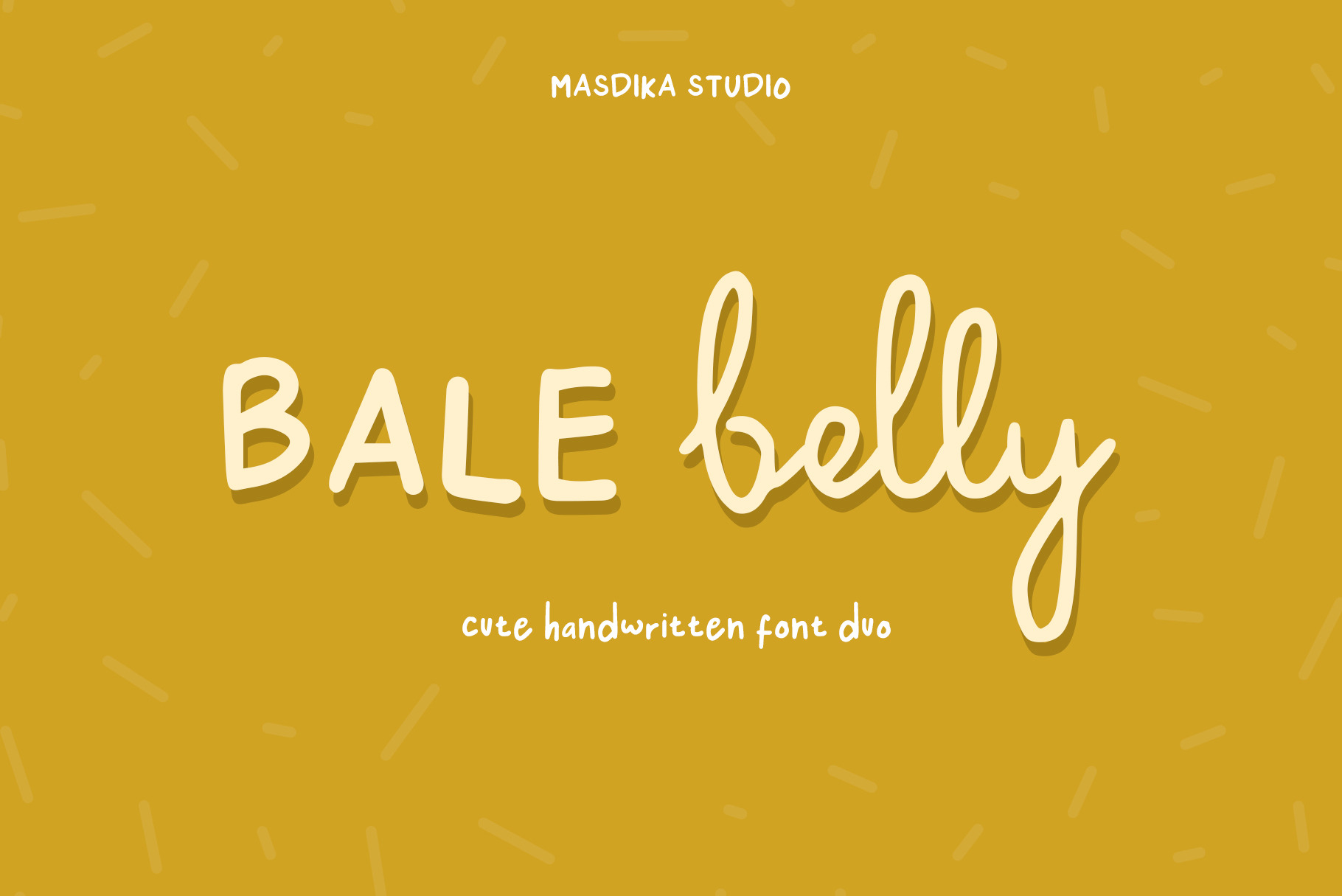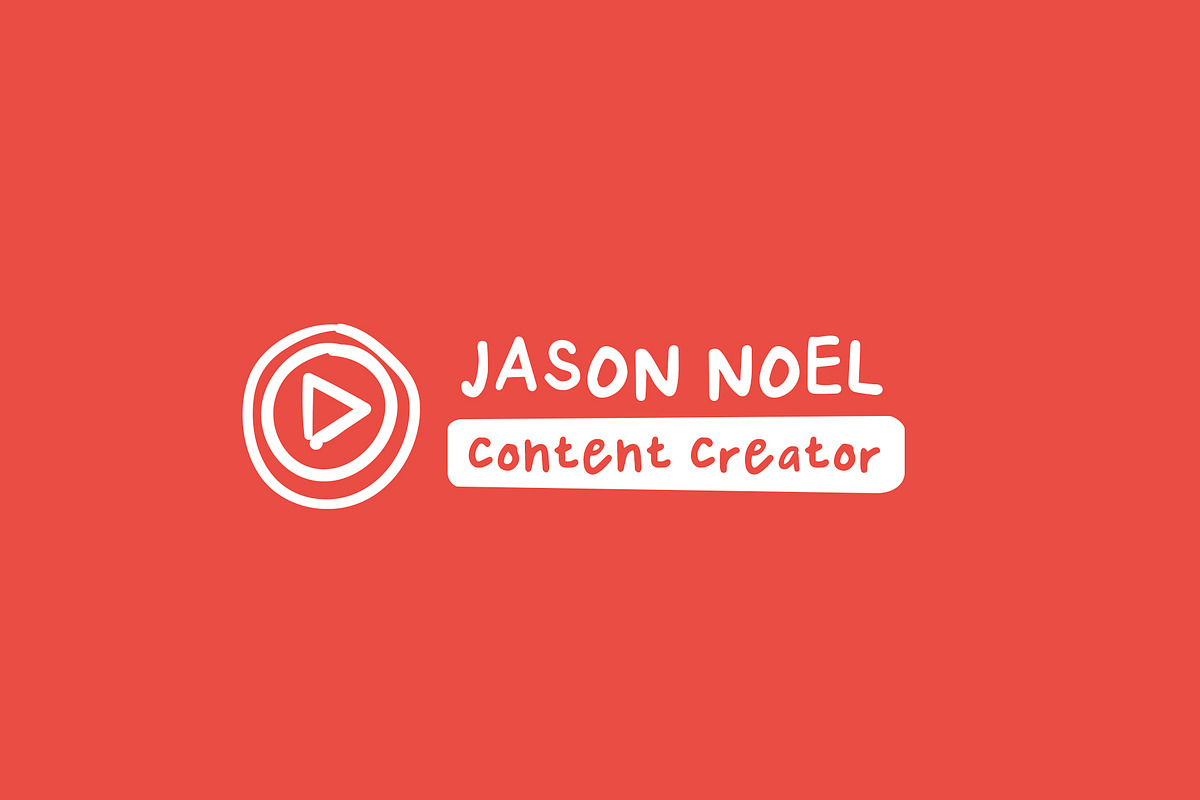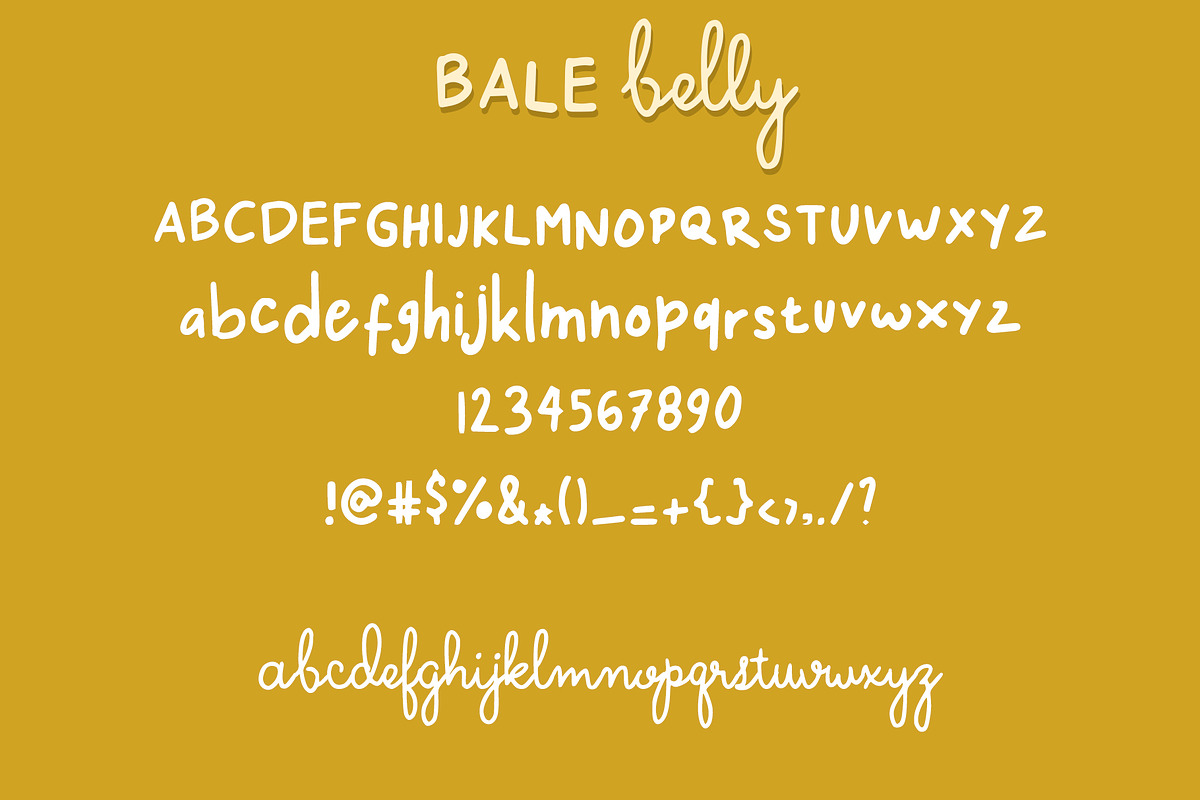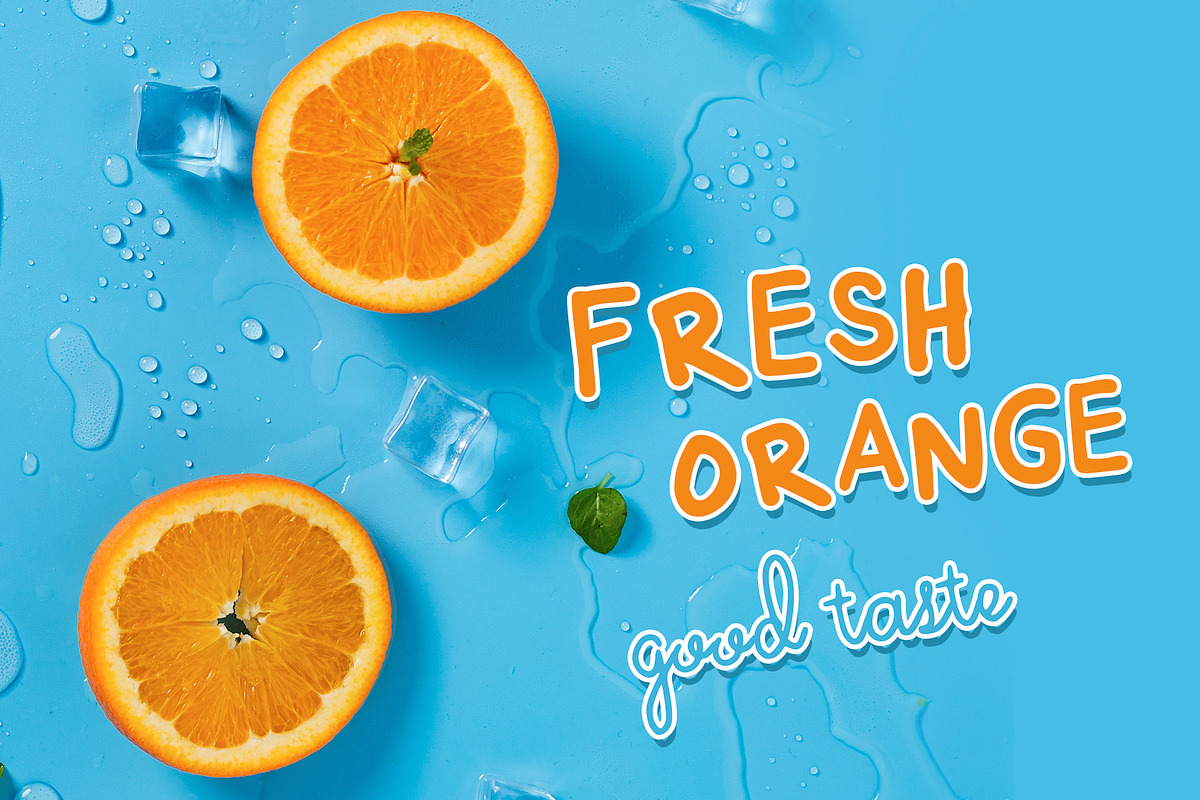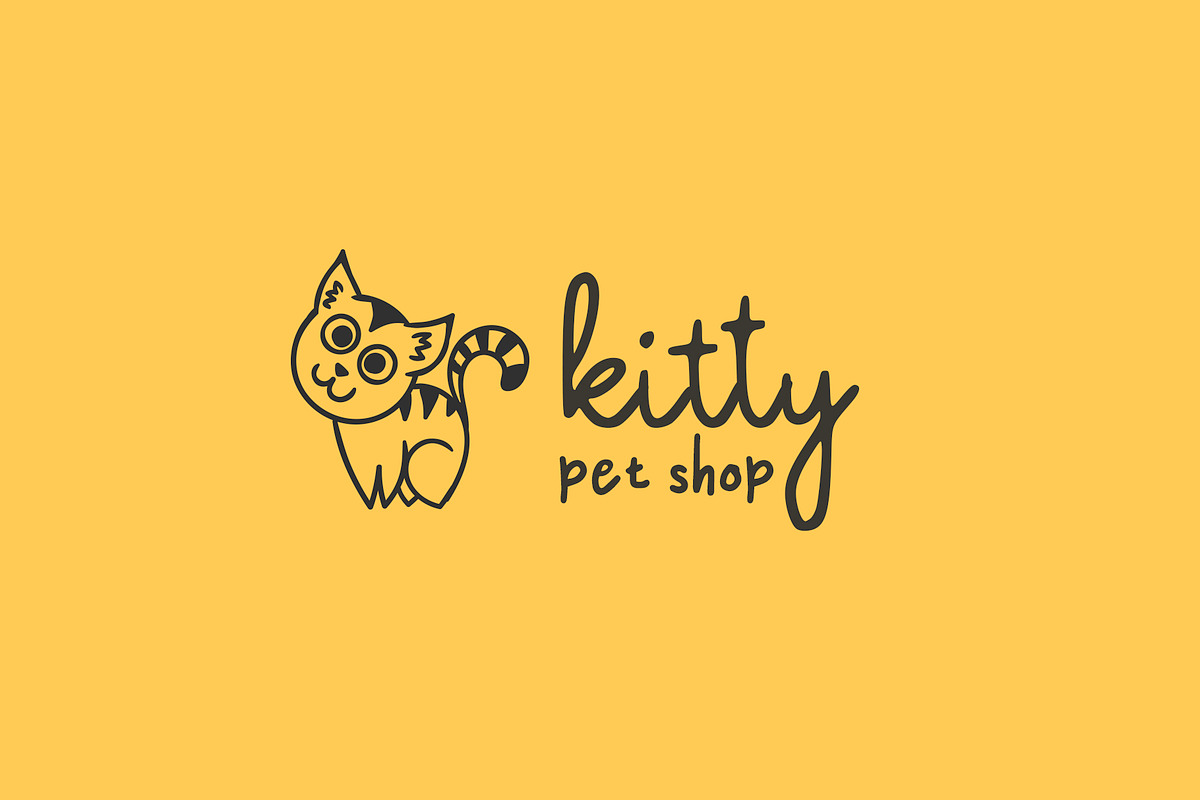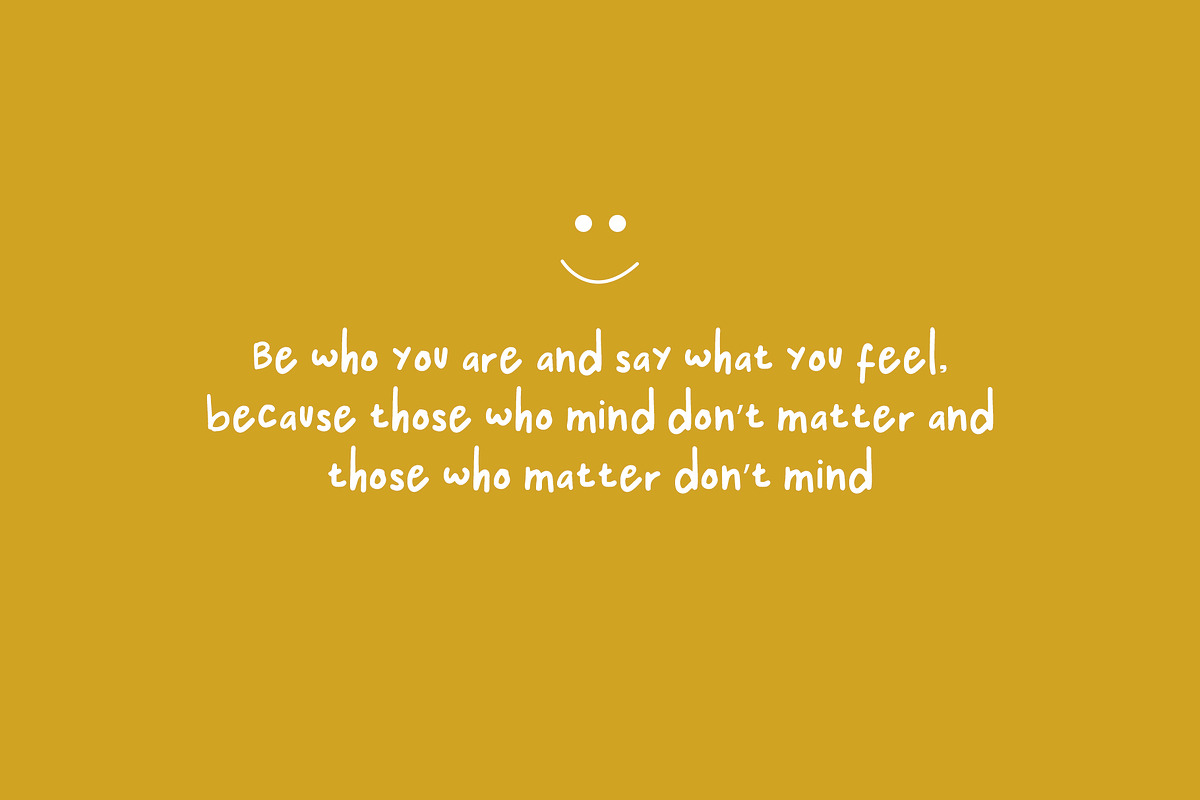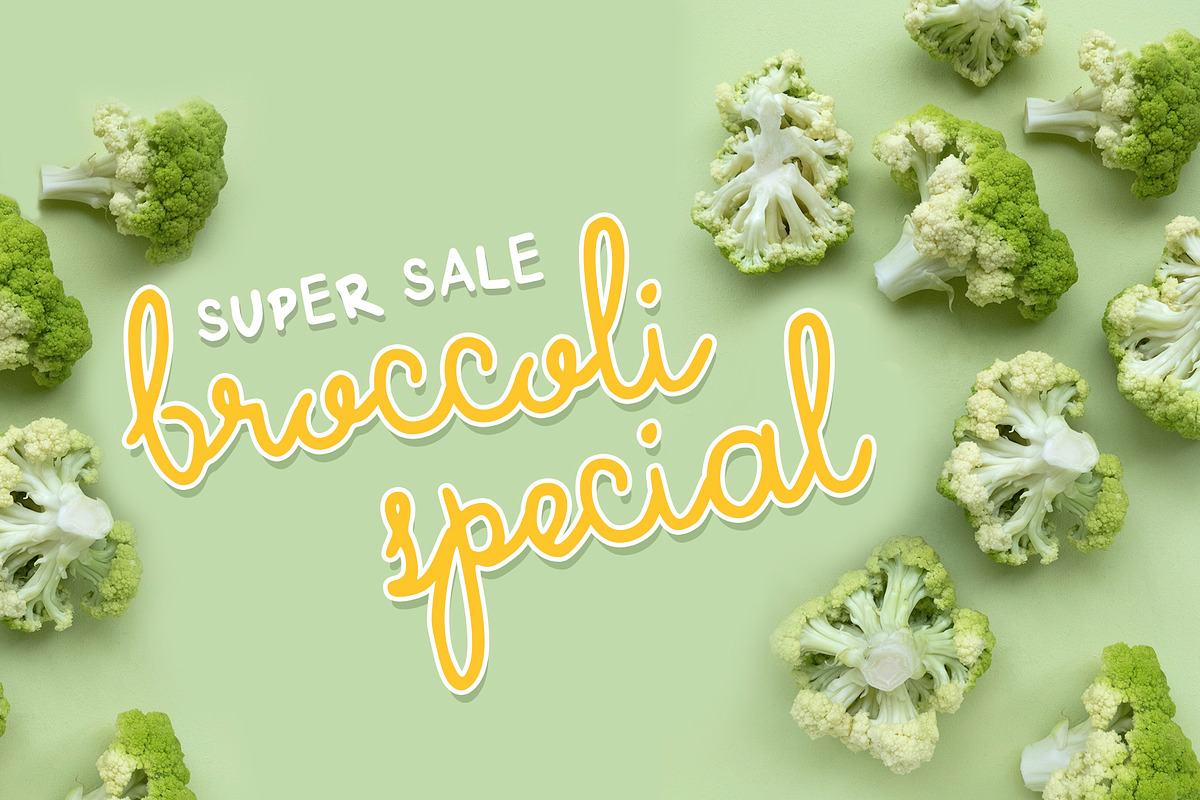
Bale Belly Cute Handwritten Font Duo
Bale Belly Cute Handwritten Font
Meet Bale Belly Duo Font, This is display font duo with handwritten taste
Bale Belly is perfect used for quotes, photography, watermark, social media posts, advertisements, logos & branding, invitation, product designs, label, stationery, wedding designs, product packaging, special events or anything that need handwriting tast.
- Bale Belly One (OTF/TTF) - A handwritten containing upper & lowercase characters, full set of punctuation and numerals, with opentype features with stylistic alternates and ligatures.
- Bale Belly Two(OTF/TTF) a calligraphy font containing lowercase characters.
- Ton of glyphs (include Uppercase, Lowercase, Numerals & Punctuations)
- More Ligature